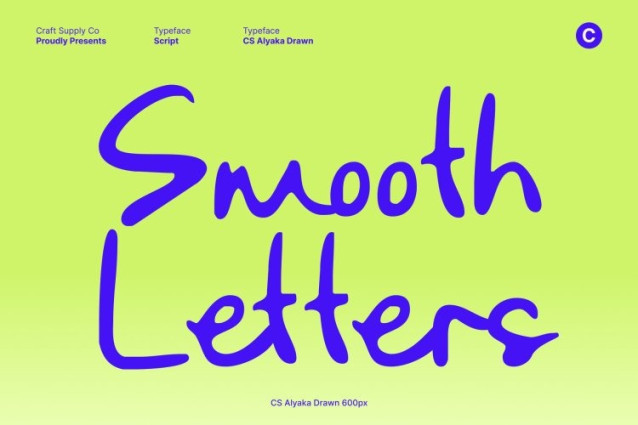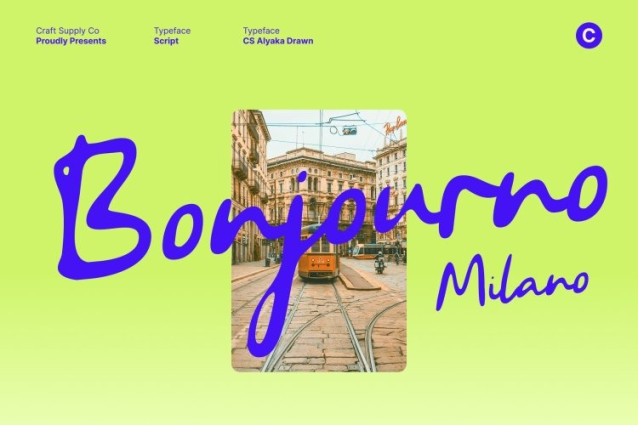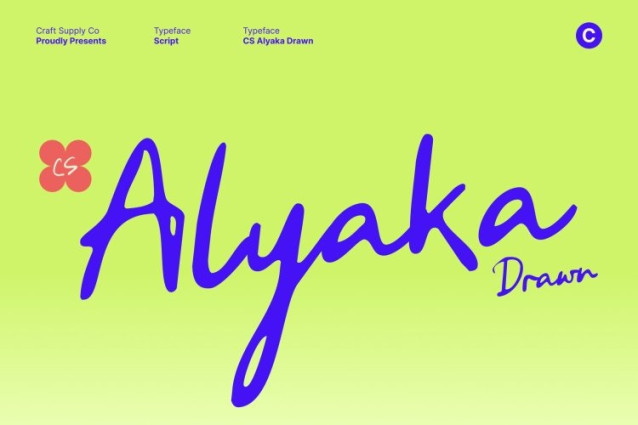
CS Alyaka Drawn Font
CS Alyaka Drawn Font This is a handwriting script font enhanced with a drawn effect, giving each letter a soft, textured, and artistic character. Inspired by natural pen strokes, it captures the warmth, authenticity, and fluid rhythm of real handwriting, making every word feel genuine, approachable, and full of personality.
Organic Curves and Casual Personality
Featuring smooth, flowing connections and subtle stroke variations, the font has a relaxed, handcrafted charm. The drawn texture adds depth and visual interest, enhancing the casual, human quality of the script while maintaining readability and style. Its natural imperfections make each letter feel uniquely expressive.
Perfect for Personal and Playful Designs
This font excels in designs that require a friendly, informal, and emotionally engaging tone. Its soft, artistic lines are ideal for greeting cards, invitations, journaling, lifestyle branding, and social media graphics. Whether as a headline or accent text, it conveys sincerity, creativity, and personal expression effortlessly.
Ideal for Greeting Cards, Branding, and Creative Projects
This font brings warmth and authenticity to any project. Perfect for small businesses, personal events, or casual lifestyle brands, it adds a distinctive, handcrafted touch that turns simple text into inviting, visually captivating storytelling.